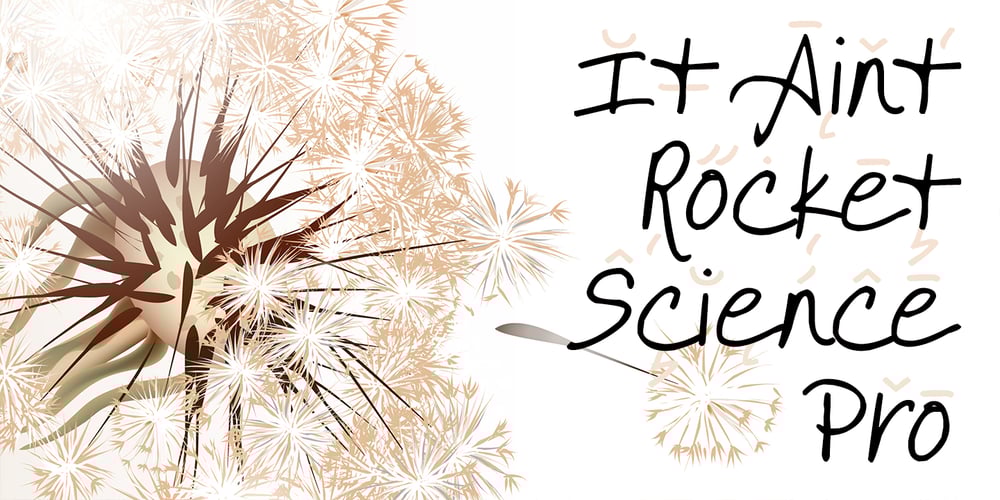
It Aint Rocket Science Pro
It Aint Rocket Science Pro font
It Aint Rocket Science Pro Font Family was designed by Roger S. Nelsson, Kimberly Geswein and published by CheapProFonts. It Aint Rocket Science Pro contains 1 styles and family package options. This font was reworked by request. It is another lovely handwritten font made by Kimberly Geswein – with its long e and c it gets a semi-connected look. Perfect for text with a personal touch. ALL fonts from CheapProFonts have very extensive language support: They contain some unusual diacritic letters (some of which are contained in the Latin Extended-B Unicode block) supporting: Cornish, Filipino (Tagalog), Guarani, Luxembourgian, Malagasy, Romanian, Ulithian and Welsh. They also contain all glyphs in the Latin Extended-A Unicode block (which among others cover the Central European and Baltic areas) supporting: Afrikaans, Belarusian (Lacinka), Bosnian, Catalan, Chichewa, Croatian, Czech, Dutch, Esperanto, Greenlandic, Hungarian, Kashubian, Kurdish (Kurmanji), Latvian, Lithuanian, Maltese, Maori, Polish, Saami (Inari), Saami (North), Serbian (latin), Slovak(ian), Slovene, Sorbian (Lower), Sorbian (Upper), Turkish and Turkmen. And they of course contain all the usual “western” glyphs supporting: Albanian, Basque, Breton, Chamorro, Danish, Estonian, Faroese, Finnish, French, Frisian, Galican, German, Icelandic, Indonesian, Irish (Gaelic), Italian, Northern Sotho, Norwegian, Occitan, Portuguese, Rhaeto-Romance, Sami (Lule), Sami (South), Scots (Gaelic), Spanish, Swedish, Tswana, Walloon and Yapese.